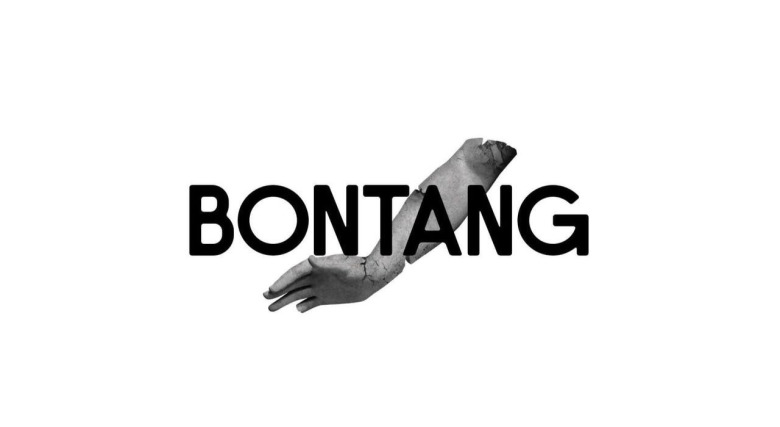
Bontang Sans Serif Typeface
Bontang Sans Serif Typeface is modern Sans-Serif font. Made for any professional project branding. Made from font designer Zuzulgo Studio. it will make your design project more beautiful. It is the best for branding, printing, wedding and quotes. Every letter has a unique and beautiful touch.